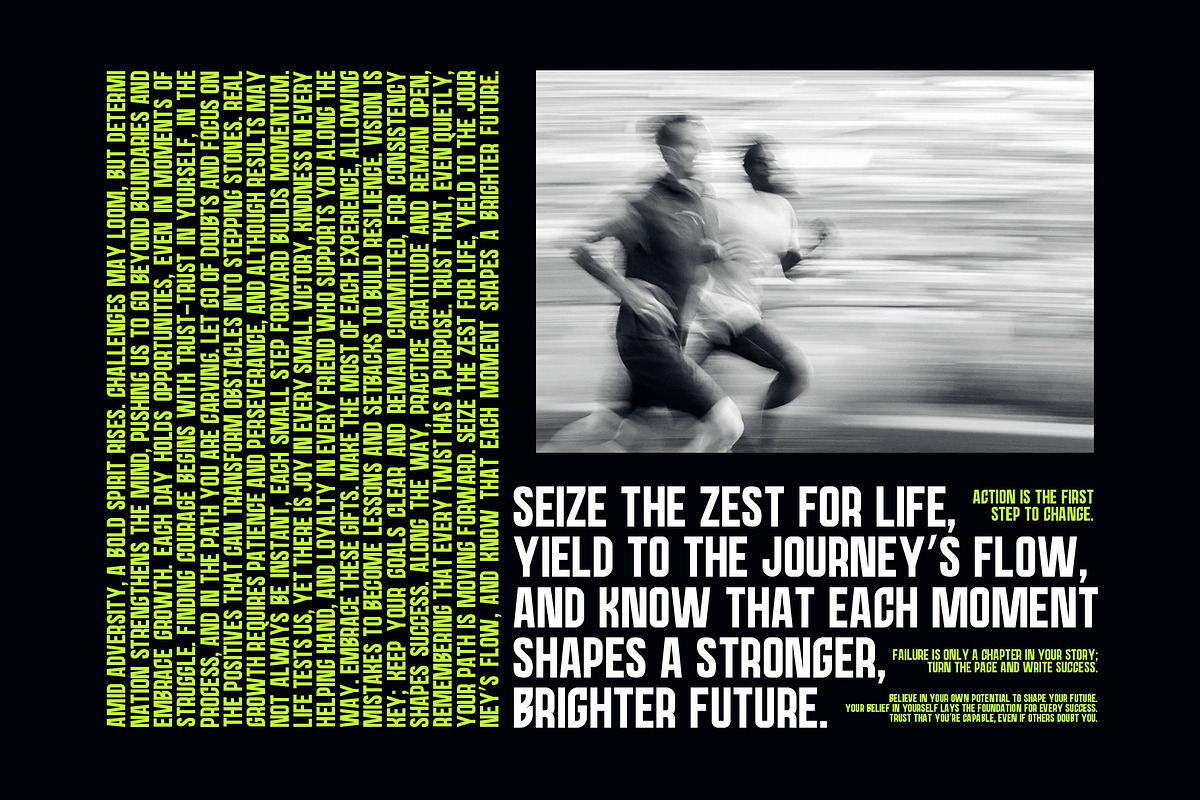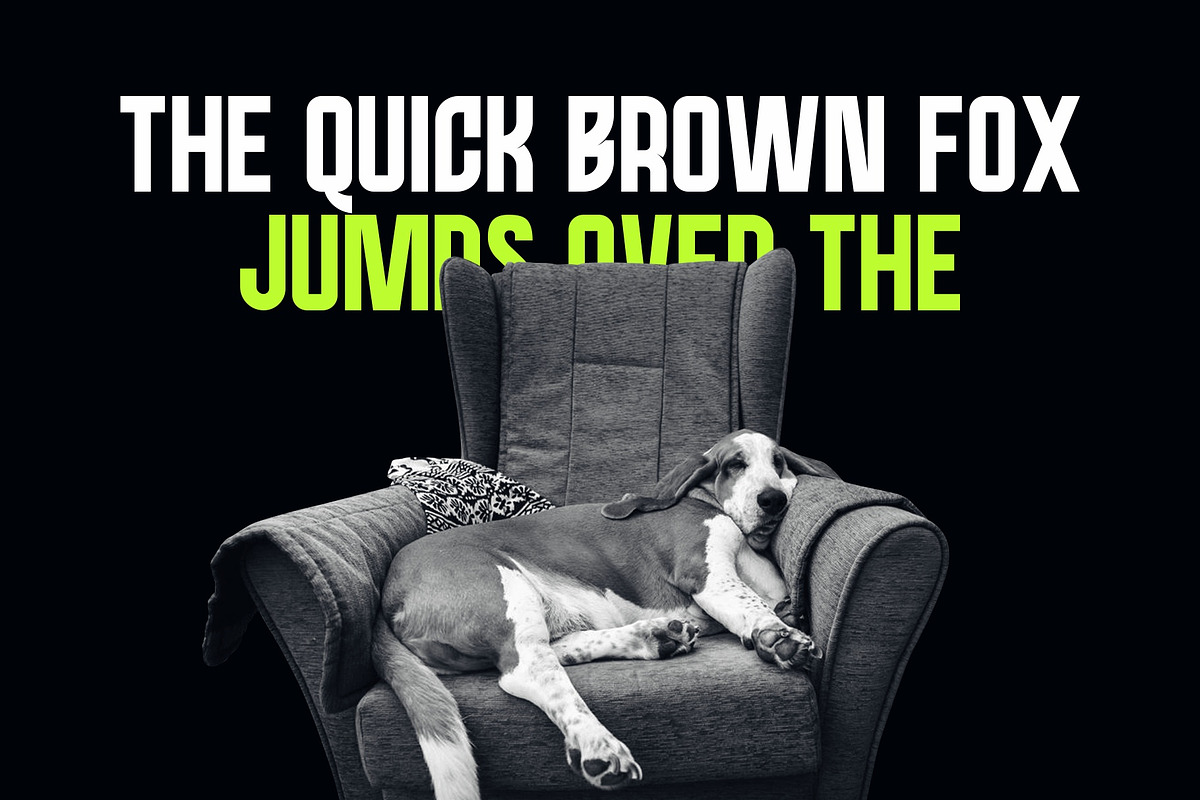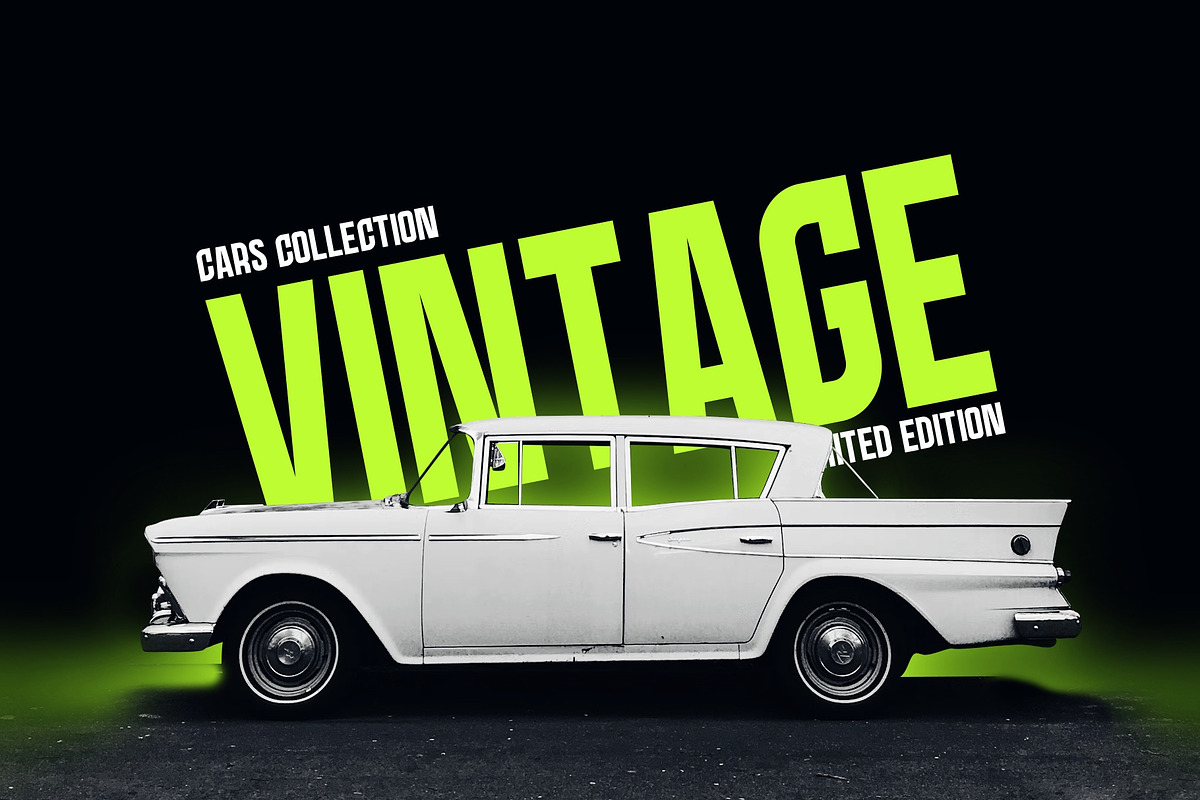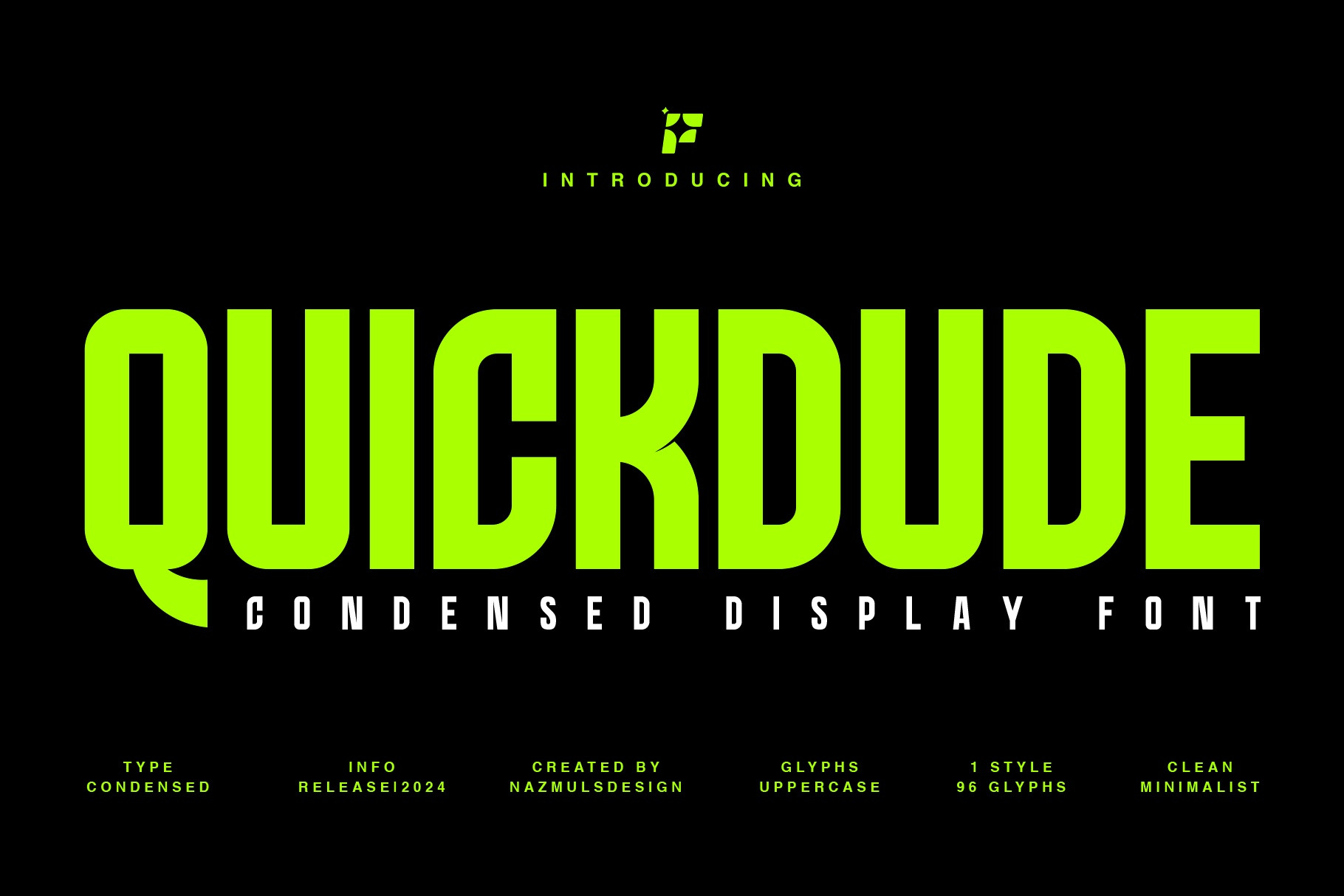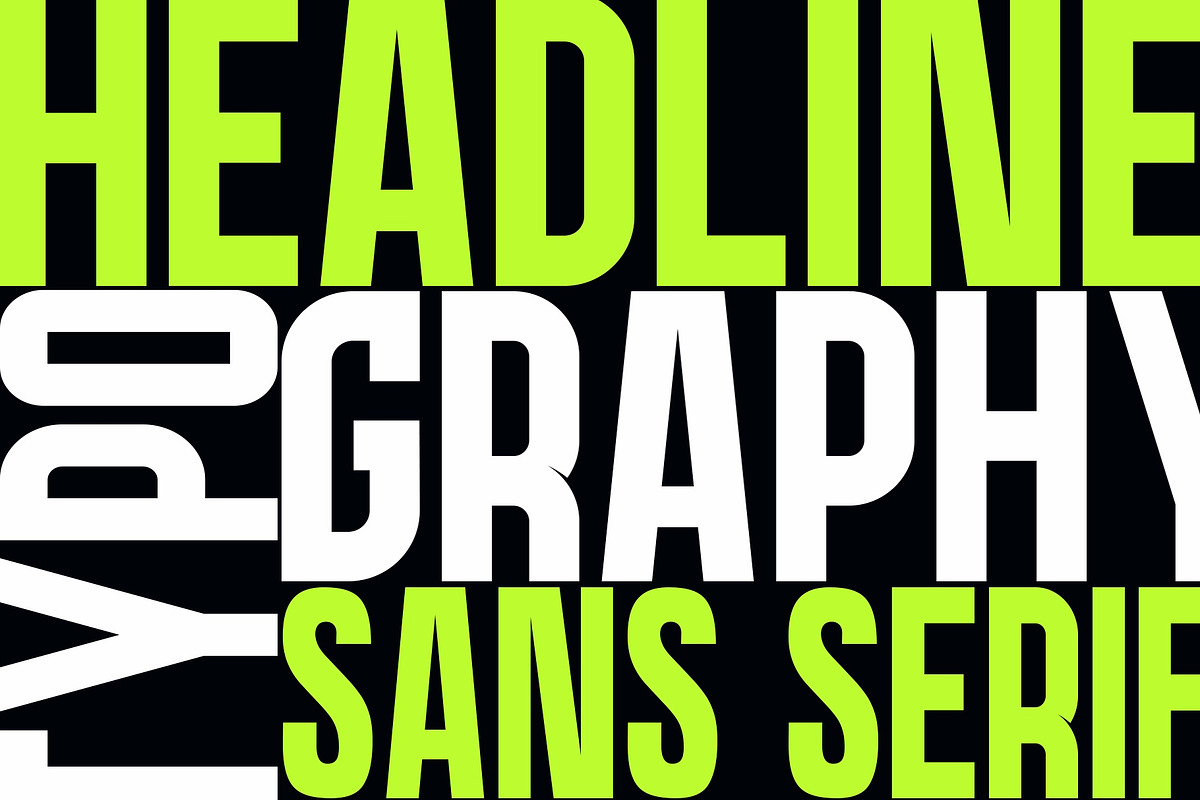
QUICKDUDE | Condensed Typeface
QUICKDUDE is a bold, modern condensed font designed for impact. Perfect for headlines, posters, and branding, it offers a sleek look that saves space without compromising style. QUICKDUDE brings energy and clarity to any design, making it ideal for both digital and print use.